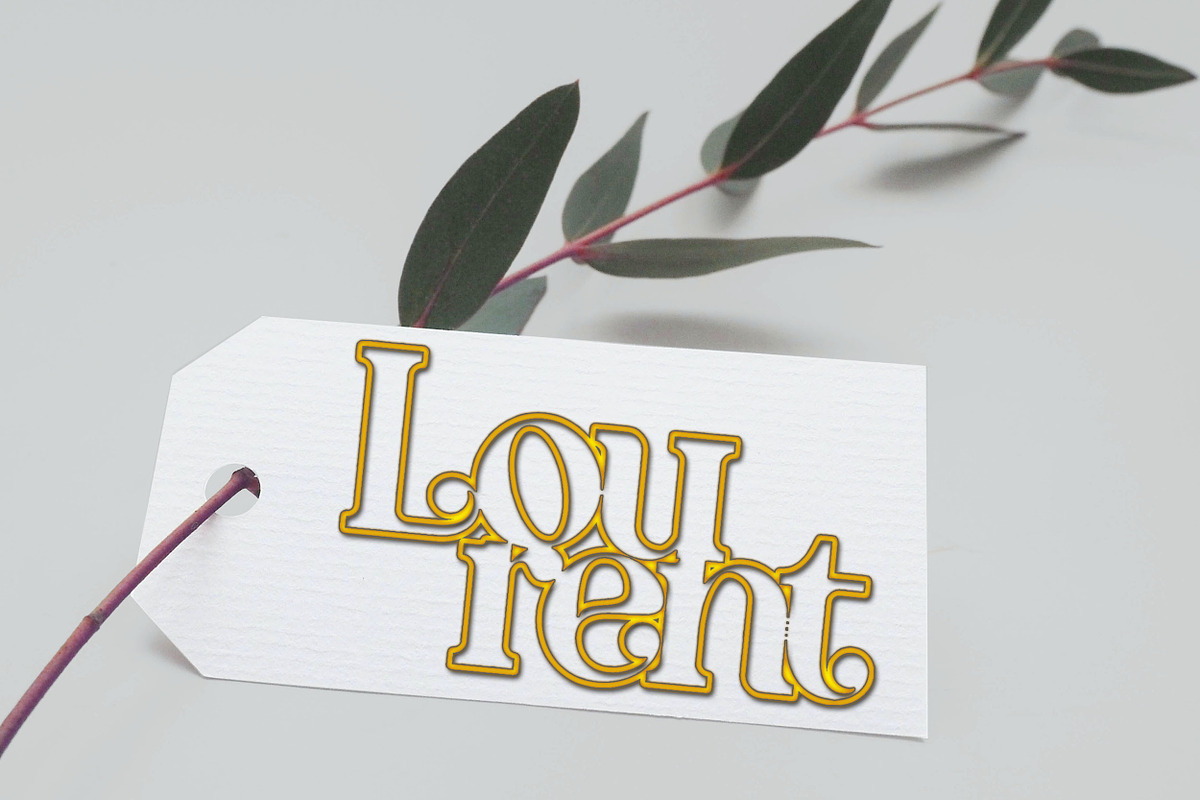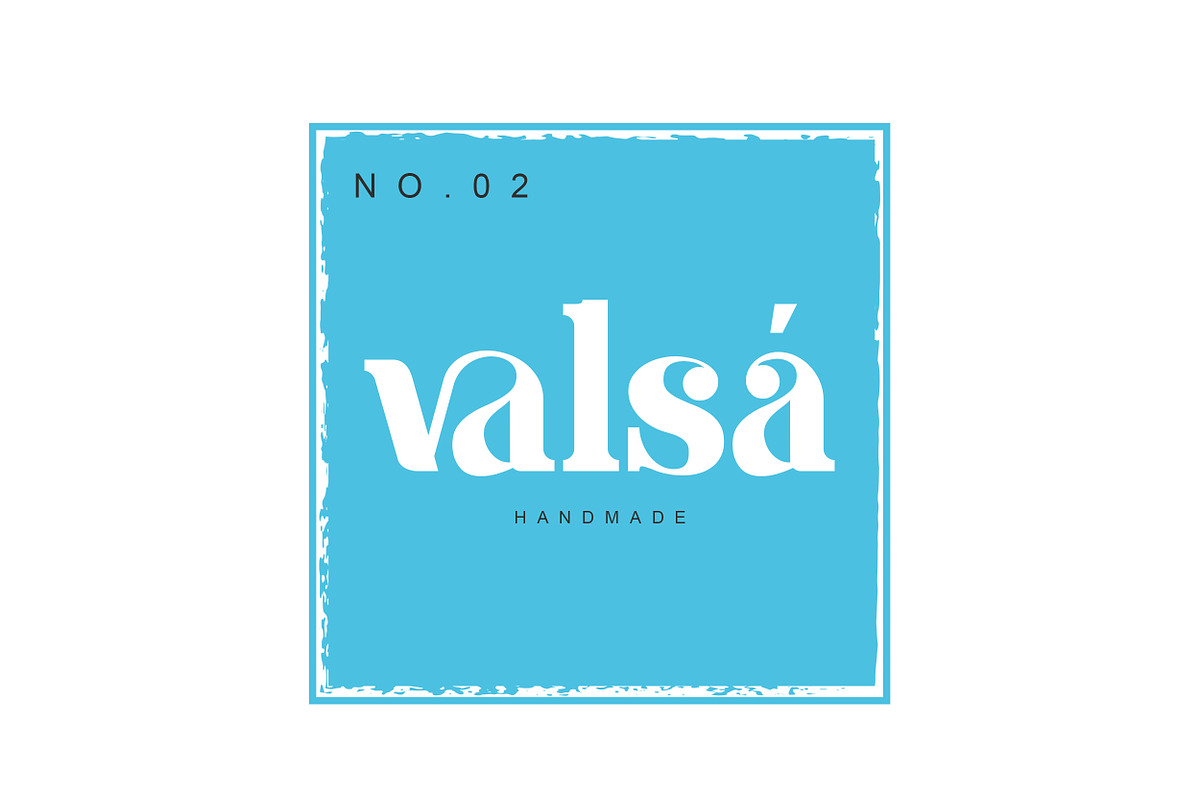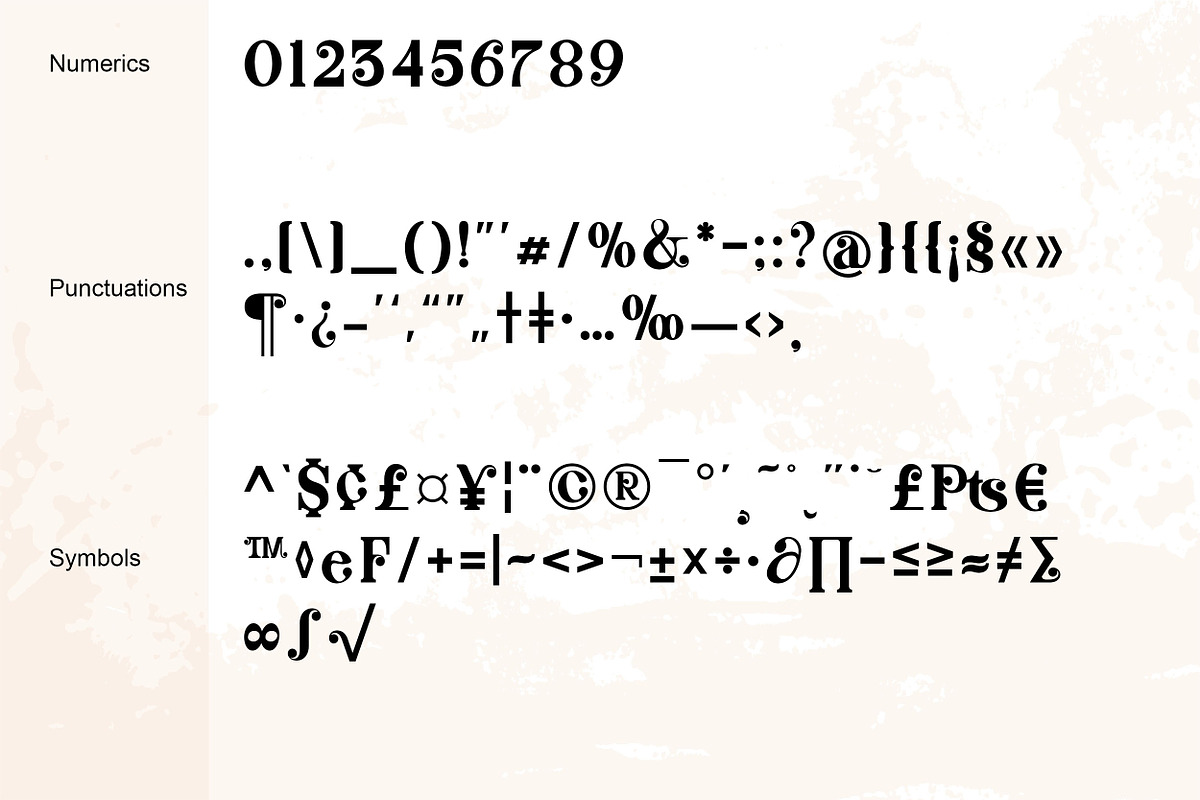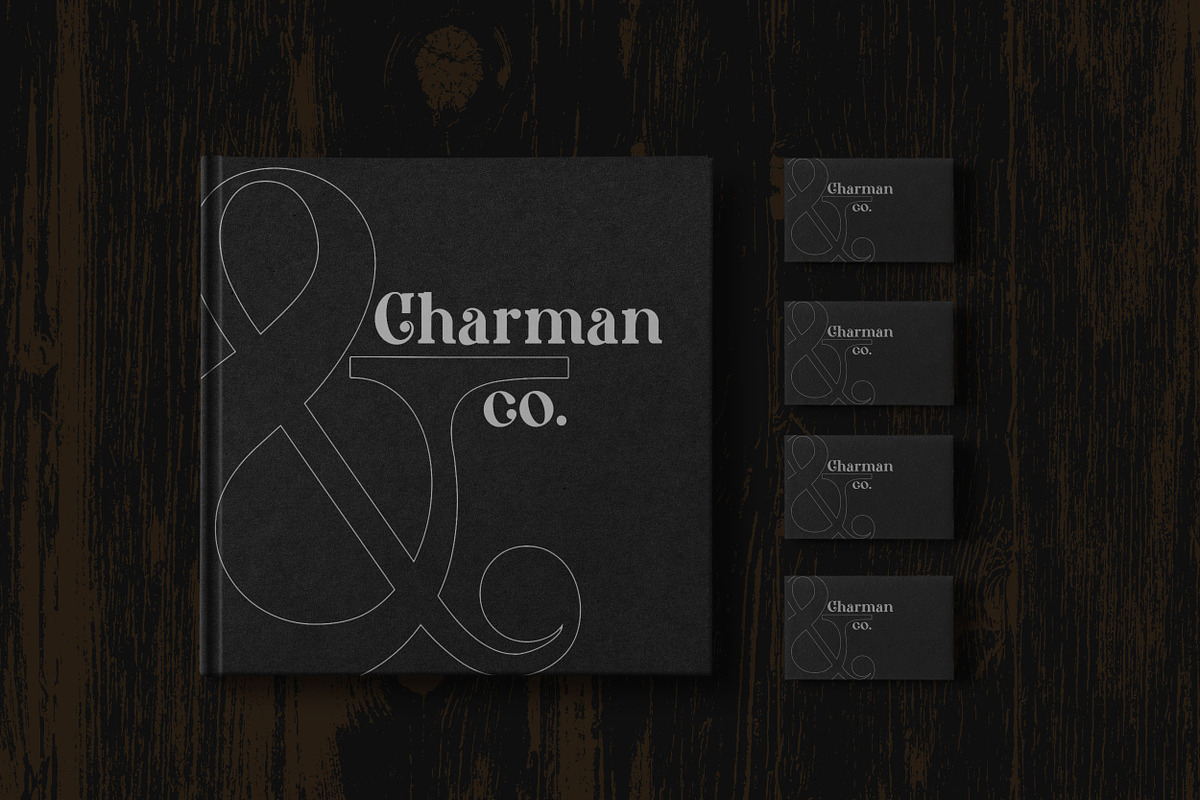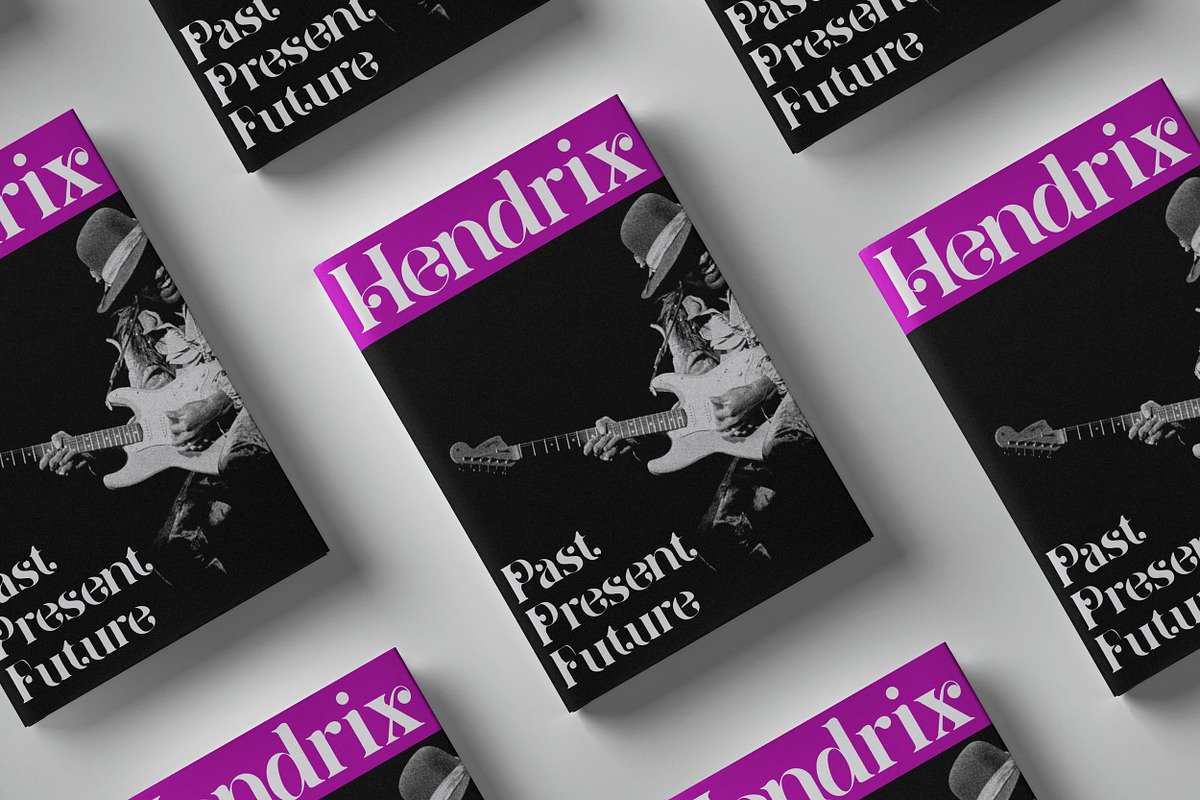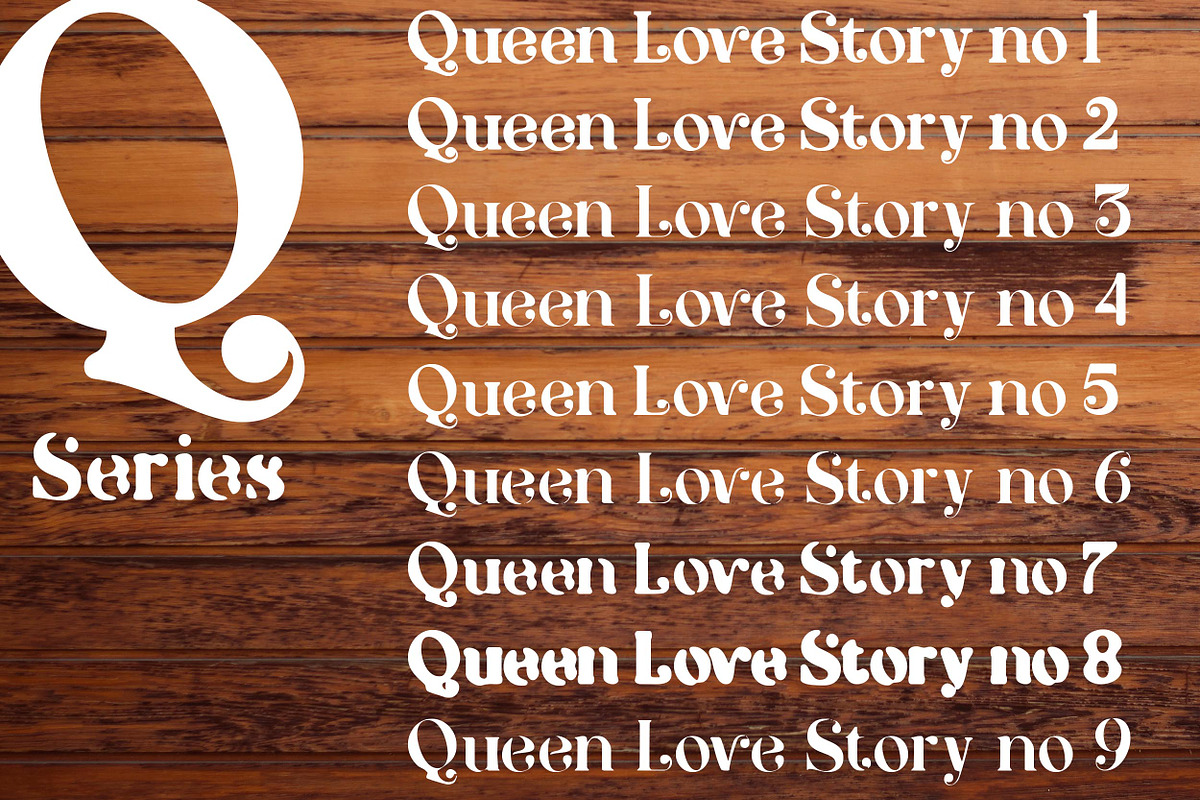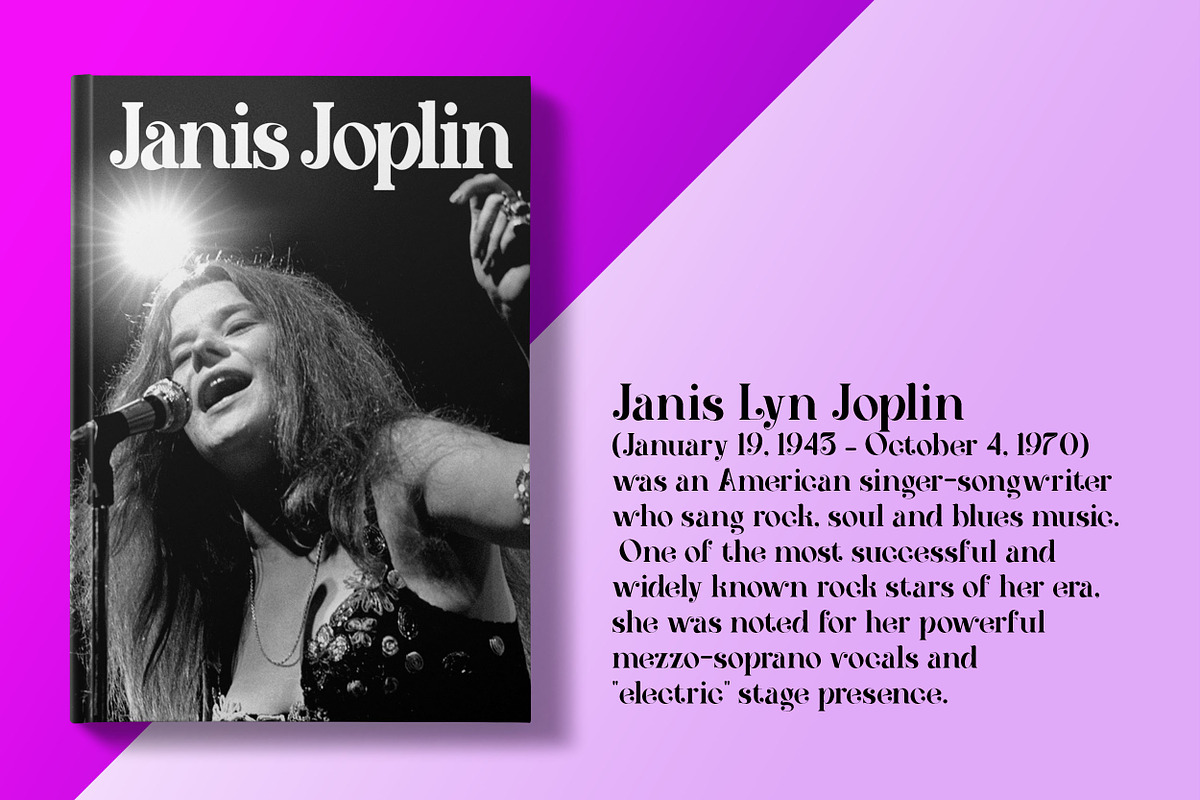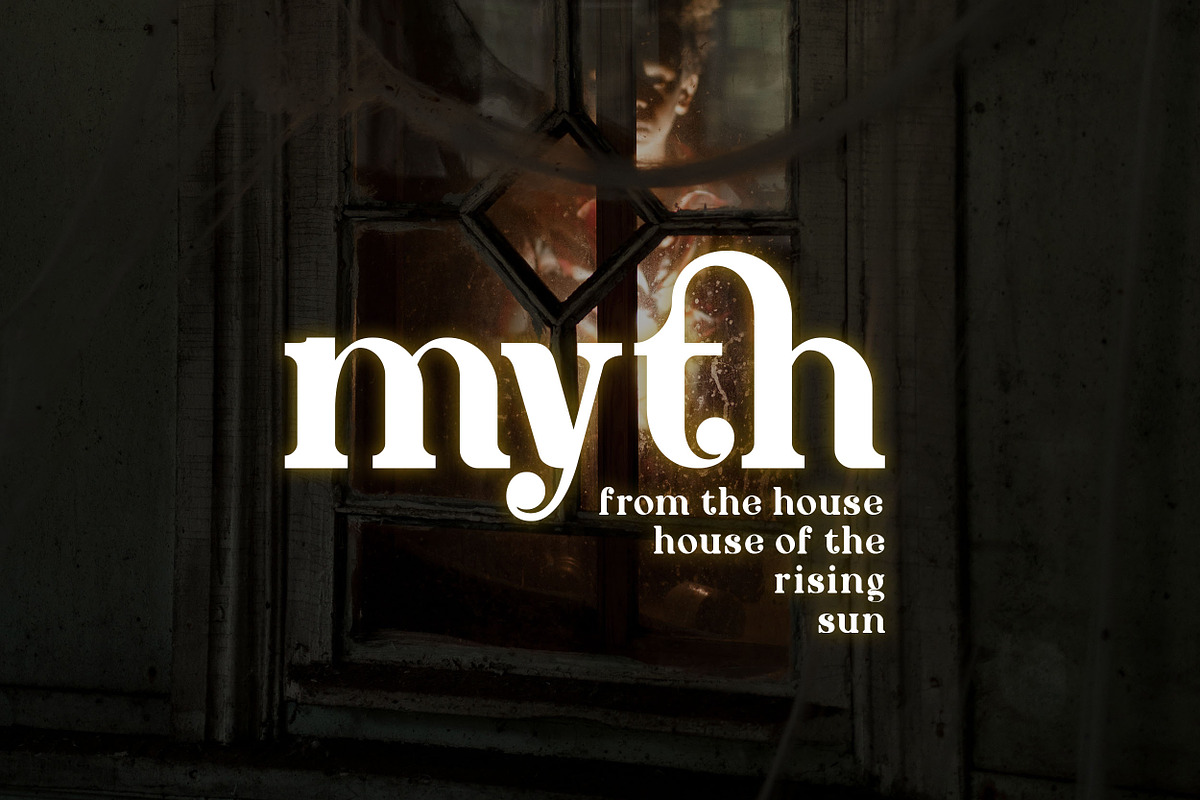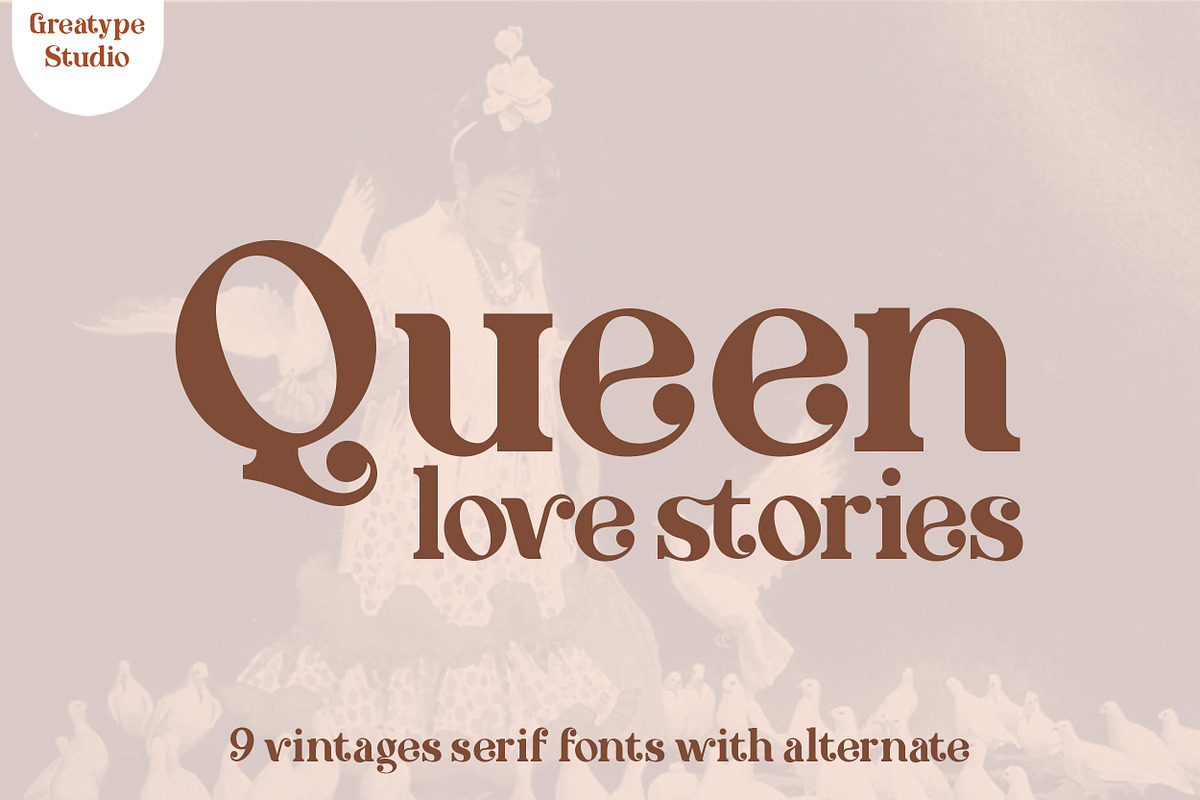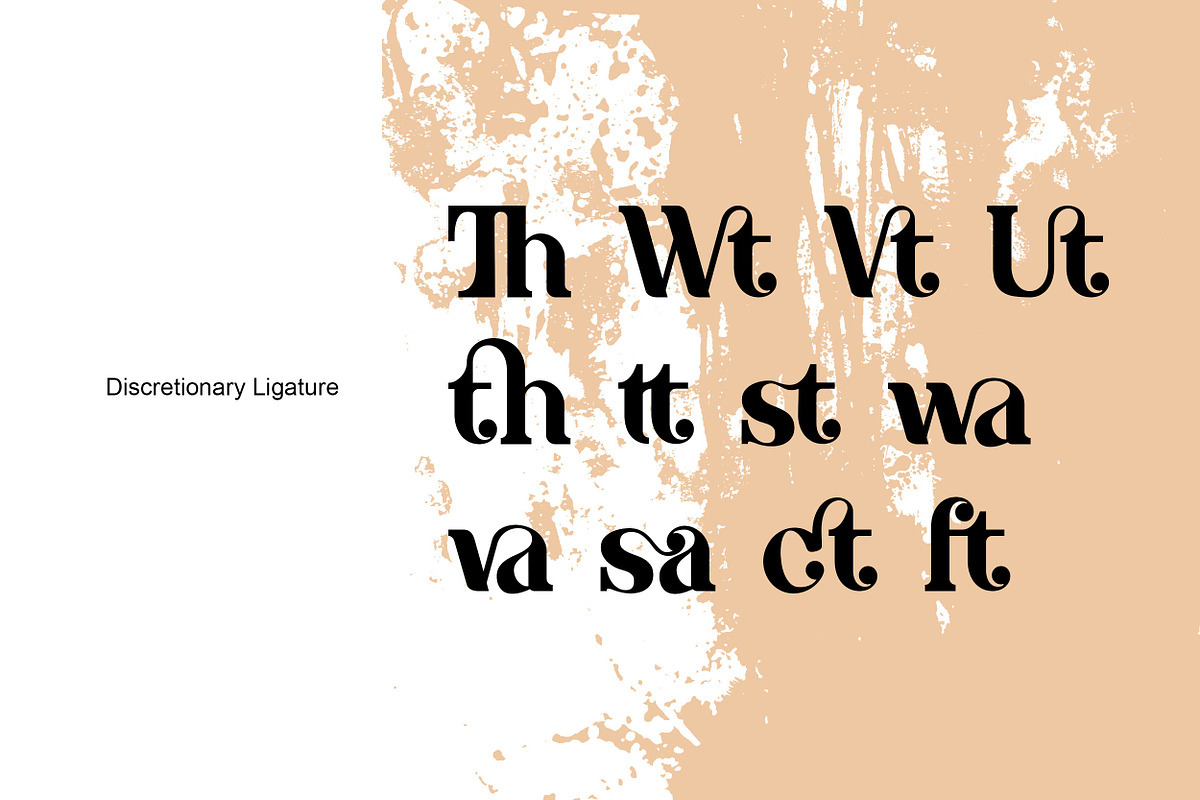
Queen Love Stories
Introducing Queen Love Stories.
A vintage serif font series inspired by the fonts of 70s.
In the 70s, the world began entering a period of change, from music, lifestyle, design, art and also font.
- 9 Serif font series
- Numeric
- Discretionary Ligature
- Extended Latin